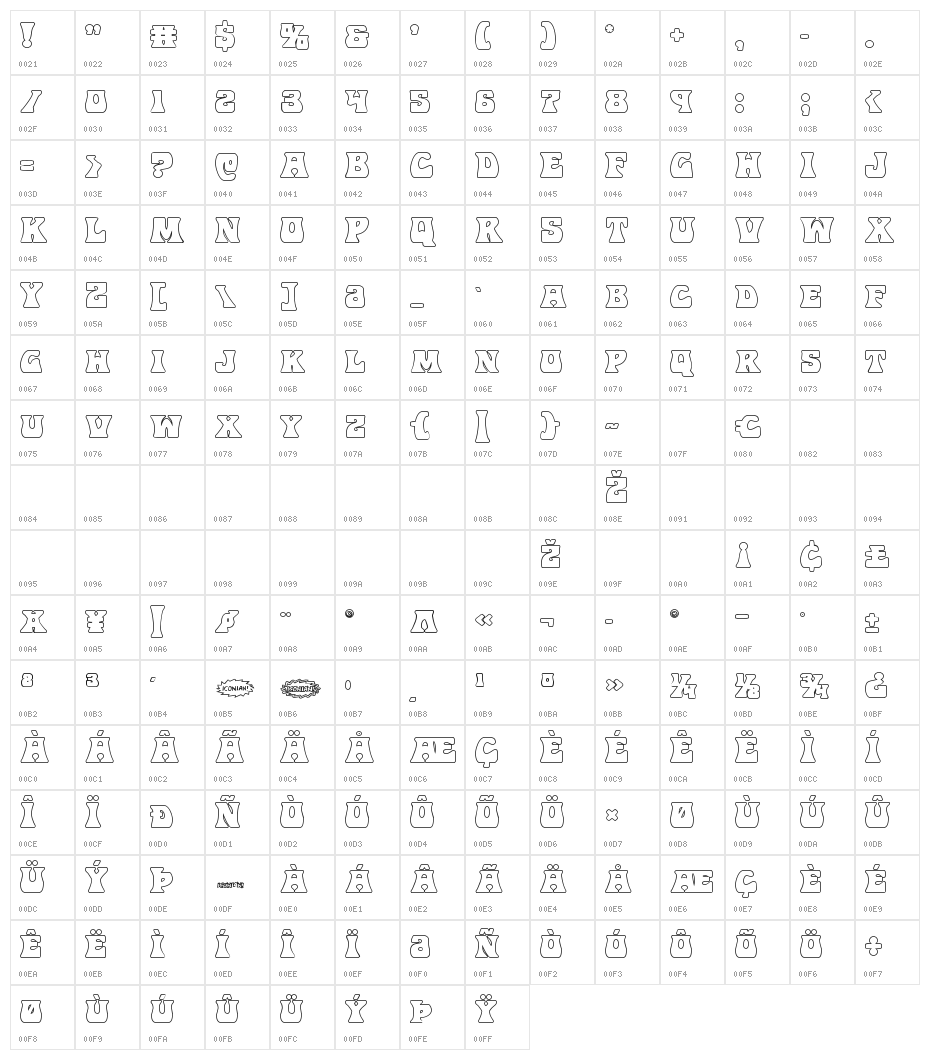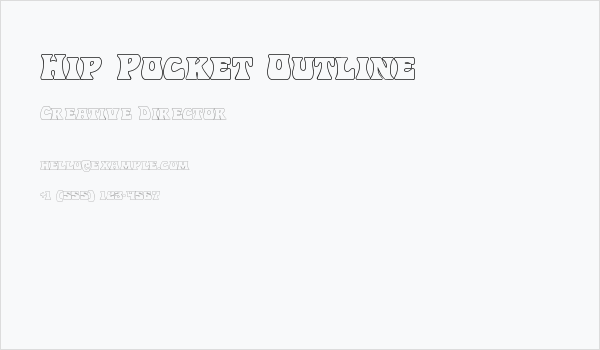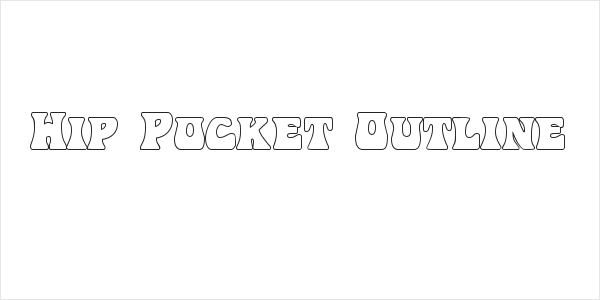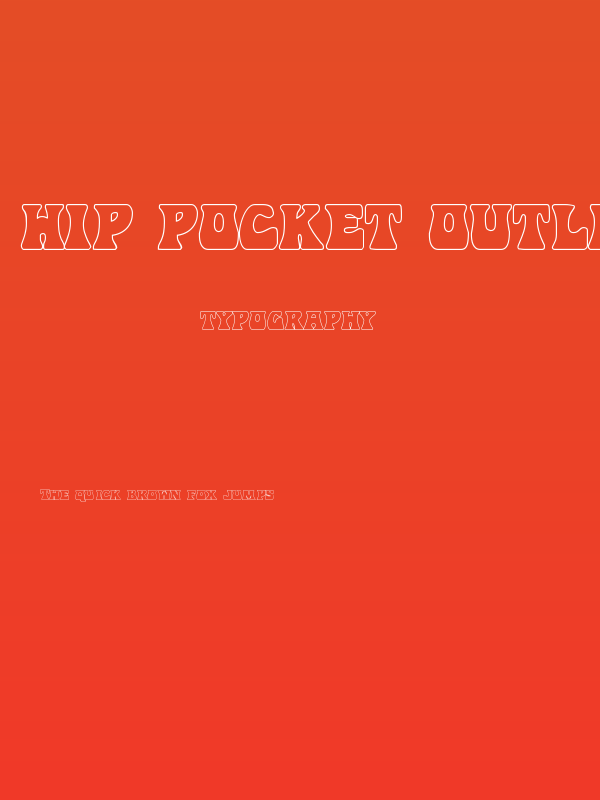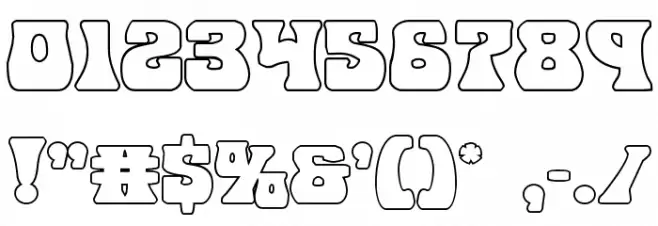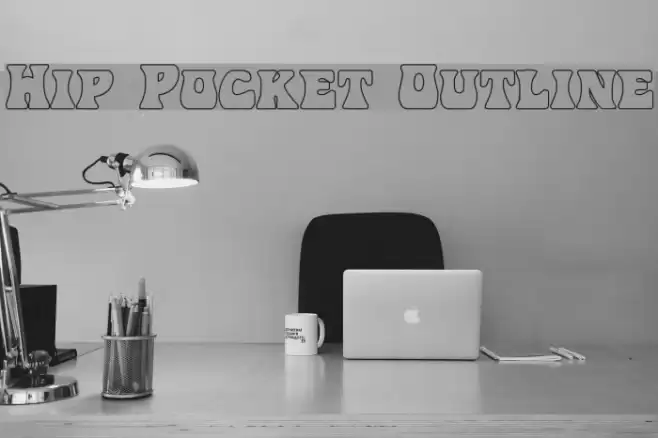
Hip Pocket Outline Font
This font features a bold, playful outline style with a distinct retro vibe. Each character is outlined, giving it a hollow appearance that adds a unique dimension to the text. The letters are wide and have a slightly irregular shape, contributing to a casual and fun aesthetic. The numbers and special characters follow the same design principles, ensuring consistency across all glyphs. This font is ideal for projects that require a touch of nostalgia or a standout display typeface.
| Overall Style | Retro, Playful |
| Proposed Projects | Perfect for vintage-themed posters, playful branding, children's book covers, and eye-catching headlines. |